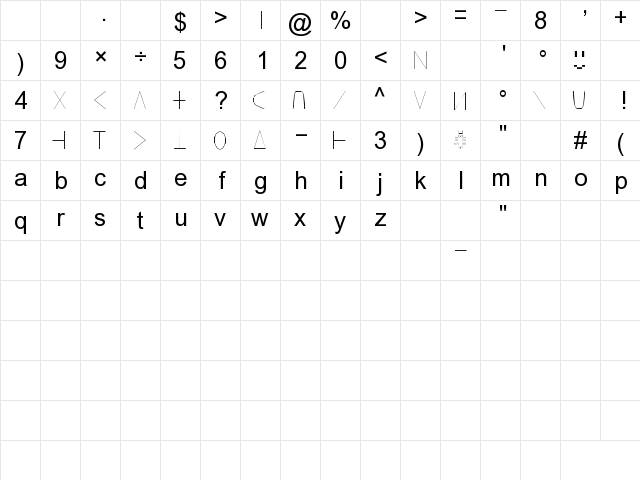
Uteran Regular
Design Context for Uteran Typeface
Uteran takes a measured approach to typography — its balanced proportions and neutral character make it a reliable workhorse for both digital and print work.
Pro Tip: Use Uteran in both headline and body roles to test its range before committing to a single application.